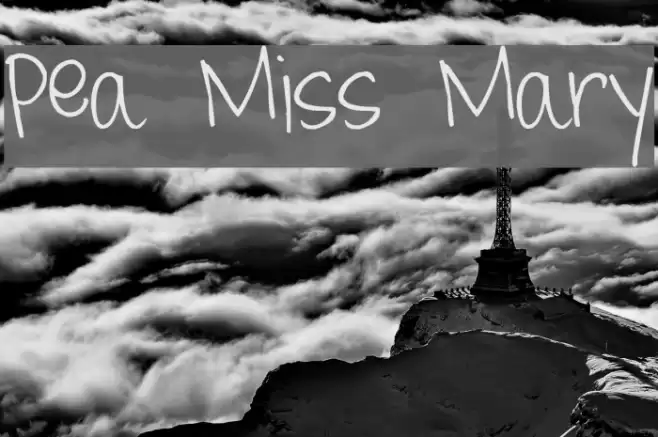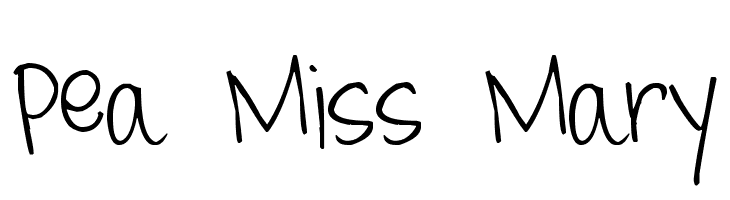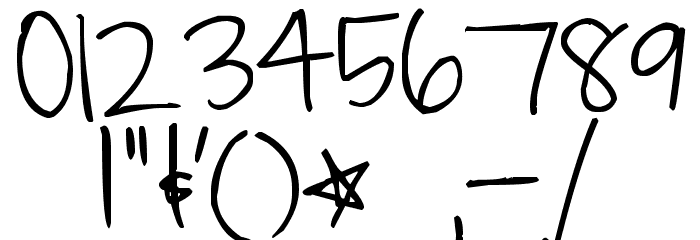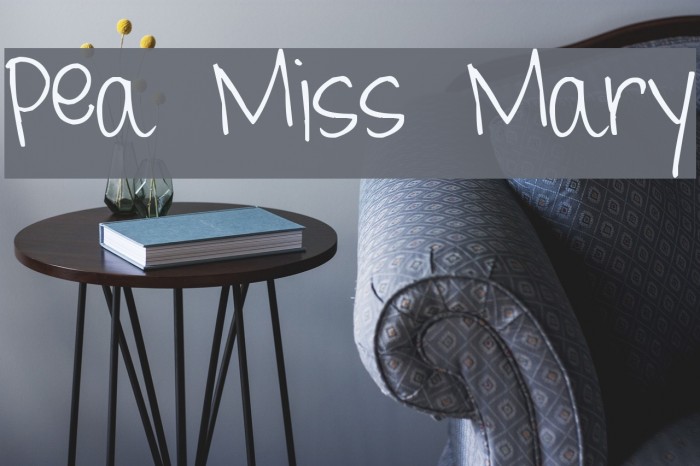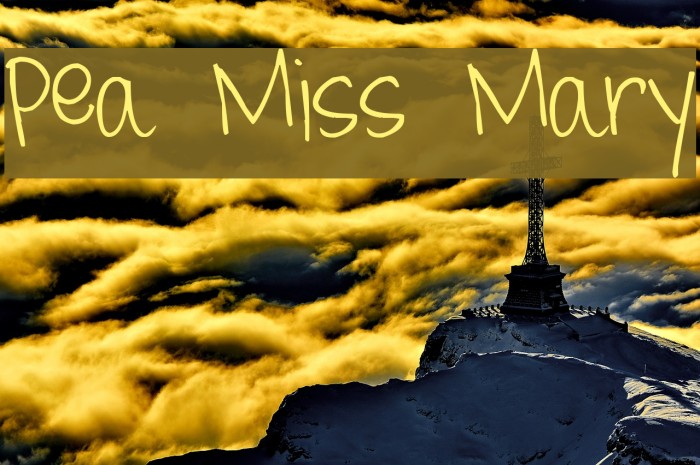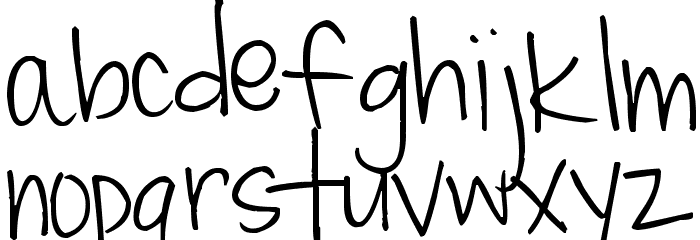
Pea Miss Mary Font
Pea Miss Mary Description
This playful and whimsical handwritten font features a casual and informal style, characterized by its uneven stroke widths and slightly irregular letterforms. The letters are tall and narrow, with a slight slant that adds to the font's dynamic and lively appearance. The uppercase and lowercase letters are distinct yet harmonize well together, creating a cohesive look. The numbers and special characters maintain the same playful aesthetic, making this font suitable for creative and fun projects. Its overall appearance is approachable and friendly, ideal for conveying a sense of warmth and personality.
A playful, handwritten font with a casual and lively style from Uncategorized fonts.
- Proposed Projects: Ideal for greeting cards, children's books, playful branding, and personal projects.
- Overall Style: Playful
- Use Case: Greeting cards, Children's books, Personal projects